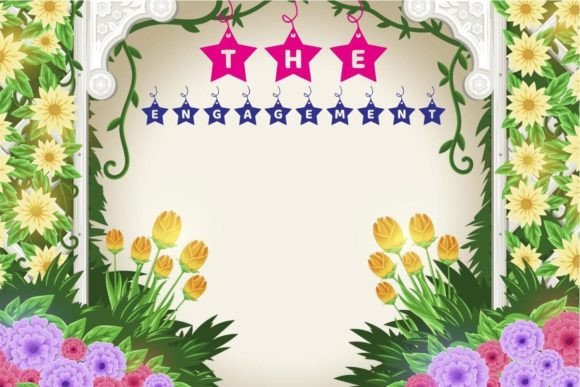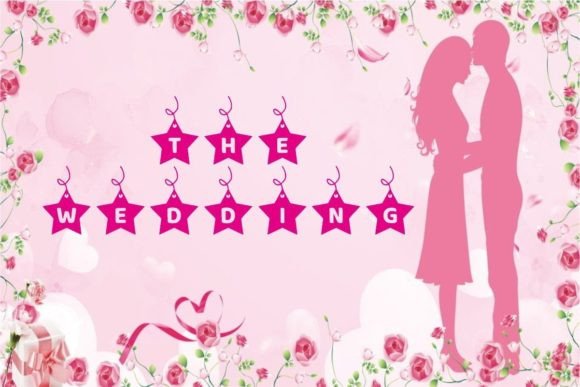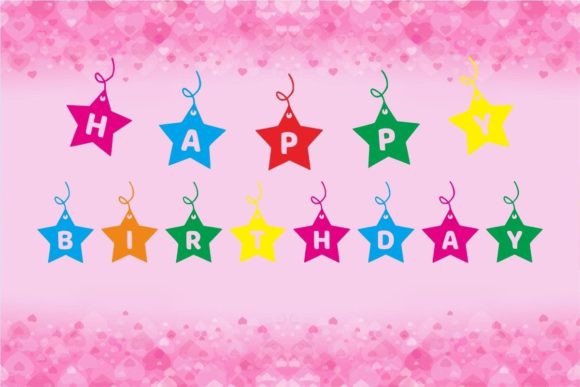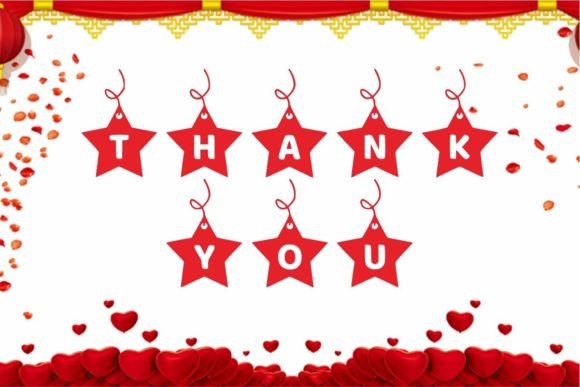
The Magic of Decoration Font: Elevating Your Designs with a Unique Touch
I’ll never forget the time I was working on a wedding anniversary project for a close friend. I had all the elements in place – beautiful photos, a stunning color scheme, and a clear vision of what I wanted to create. But, as I sat staring at my design, something felt off. The font I was using just wasn’t doing justice to the special occasion. That’s when I stumbled upon Decoration Font, and it completely transformed my design. In this article, I’ll share with you why Decoration Font is a game-changer, especially for designers, crafters, and creative hobbyists looking to add that extra special touch to their creations.
A Personal Review of Decoration Font
Decoration Font has quickly become one of my go-to fonts for projects that require a bit of elegance and whimsy. Here’s what I love about it:
- ✨ Unique aesthetic value that adds a touch of sophistication to any design
- ✅ Highly versatile and can be used for a variety of projects, from wedding anniversaries to branding and packaging
- 🎉 Supports OpenType features, glyphs, and stylistic alternates, giving you endless creative possibilities
Of course, no font is perfect, and Decoration Font does have a few small quirks:
- 🤔 Some characters may not work well in smaller font sizes, so it’s best to use it at larger sizes for optimal results
- ⚠️ Limited availability of certain language scripts, so it’s essential to check compatibility before using it for multilingual projects
The Story Behind Decoration Font
Decoration Font was inspired by traditional calligraphy and ornate typography. Its designer aimed to create a font that would add a touch of elegance and sophistication to any design. With its unique aesthetic value and versatility, Decoration Font has become a popular choice among designers and creative hobbyists.
| Font Name | Decoration Font |
| Author | fana studio |
| What makes Decoration Font unique? | Decoration Font features a distinctive aesthetic value, supporting OpenType features, glyphs, and stylistic alternates that set it apart from other fonts. |
| Is Decoration Font suitable for body text? | While Decoration Font is beautiful, it’s best used for headlines, titles, or short paragraphs. For body text, consider using a clearer, more legible font. |